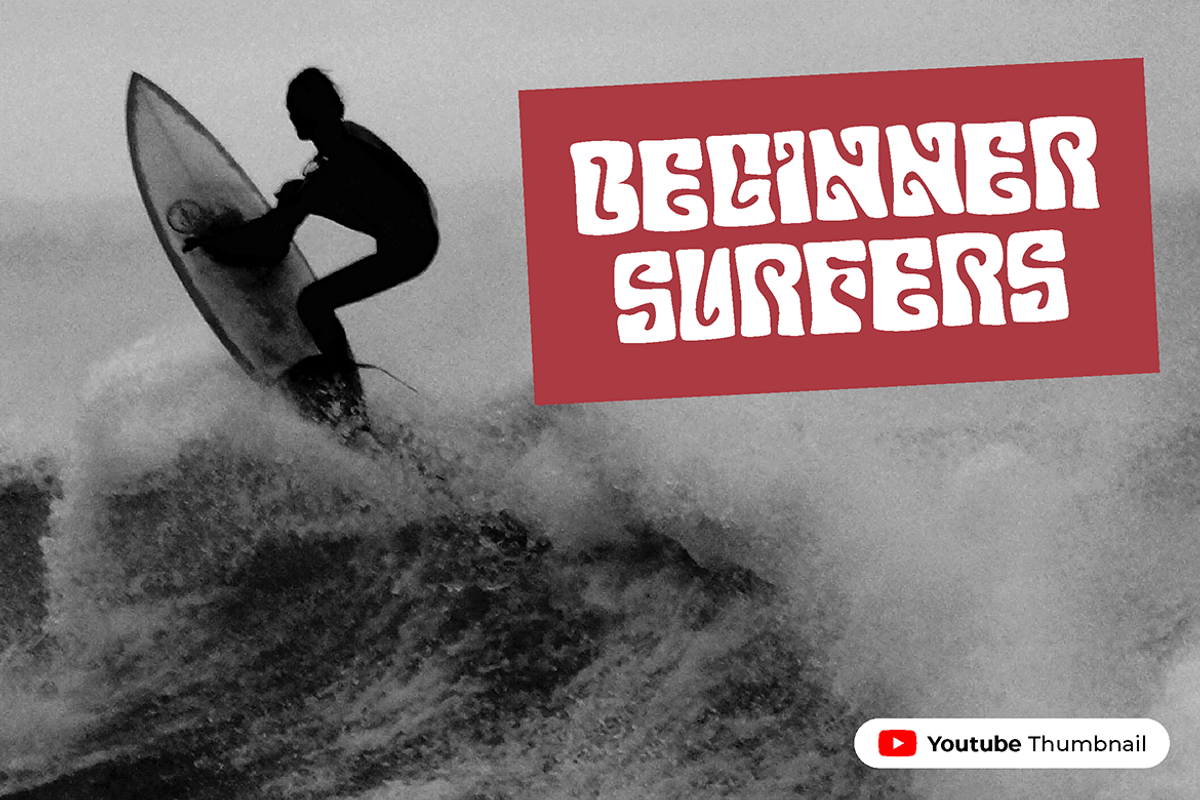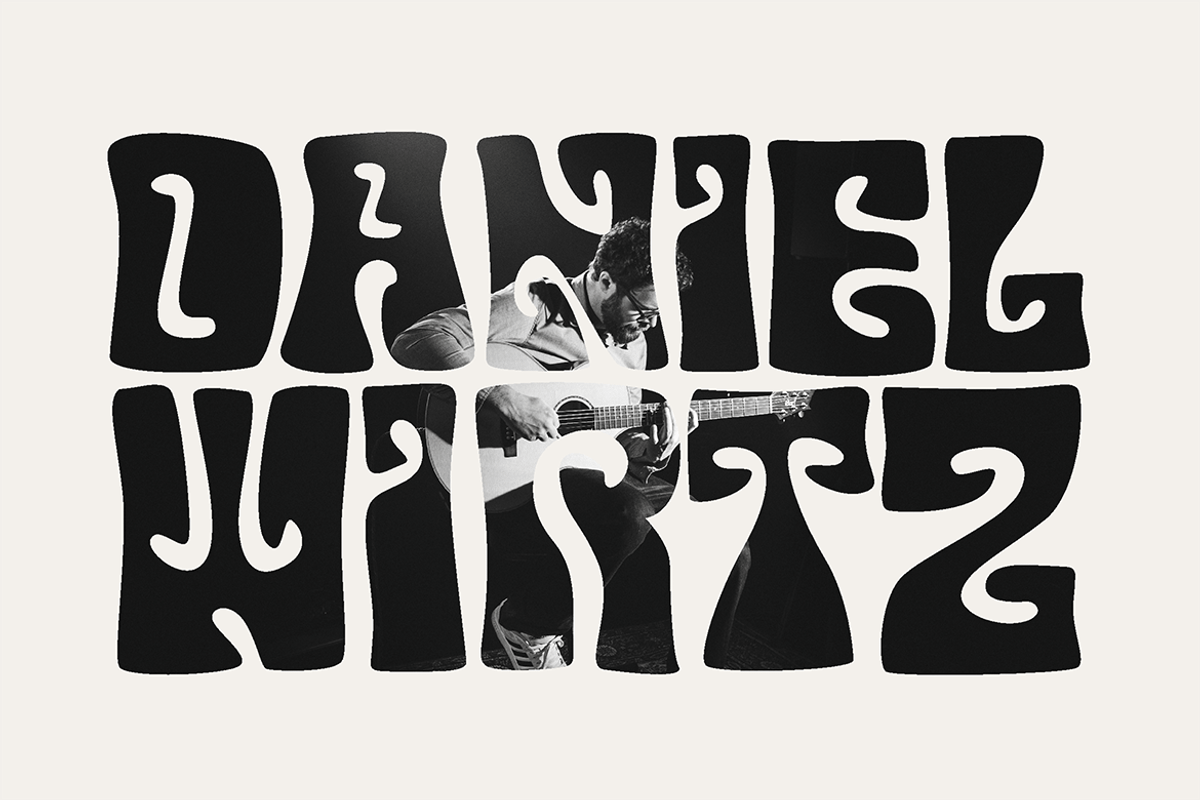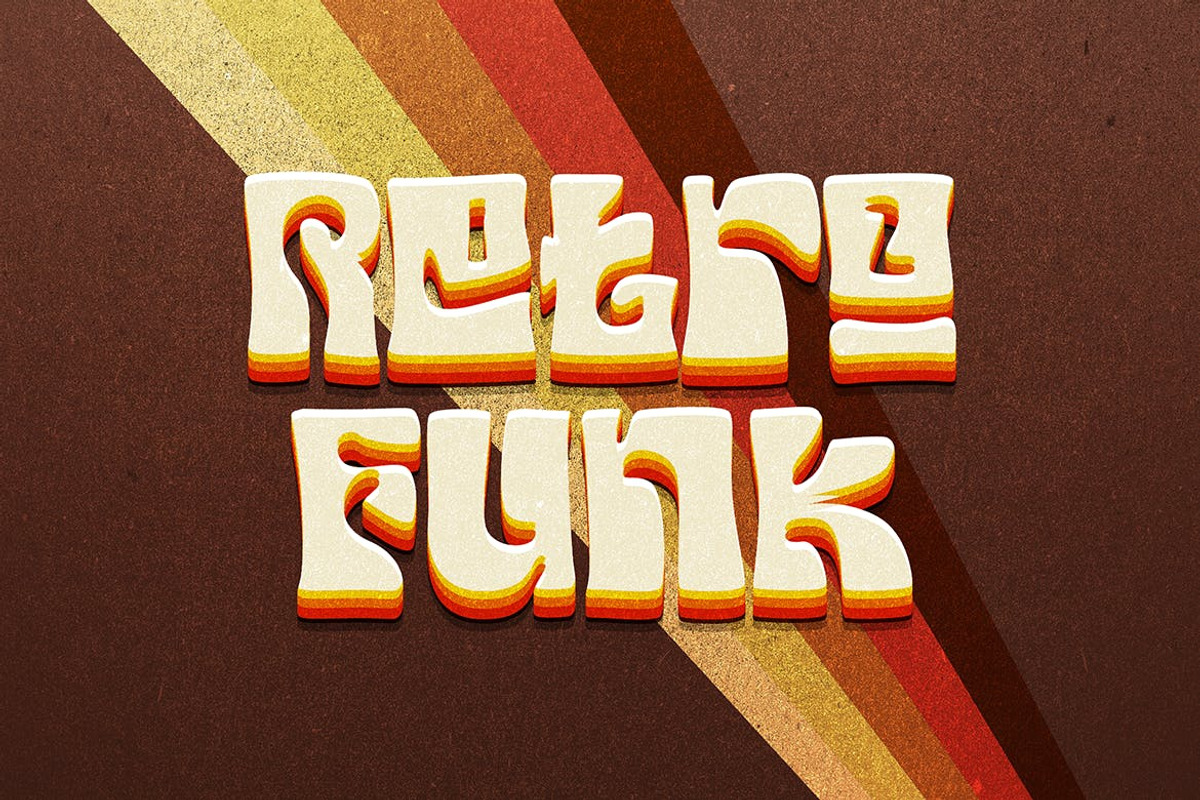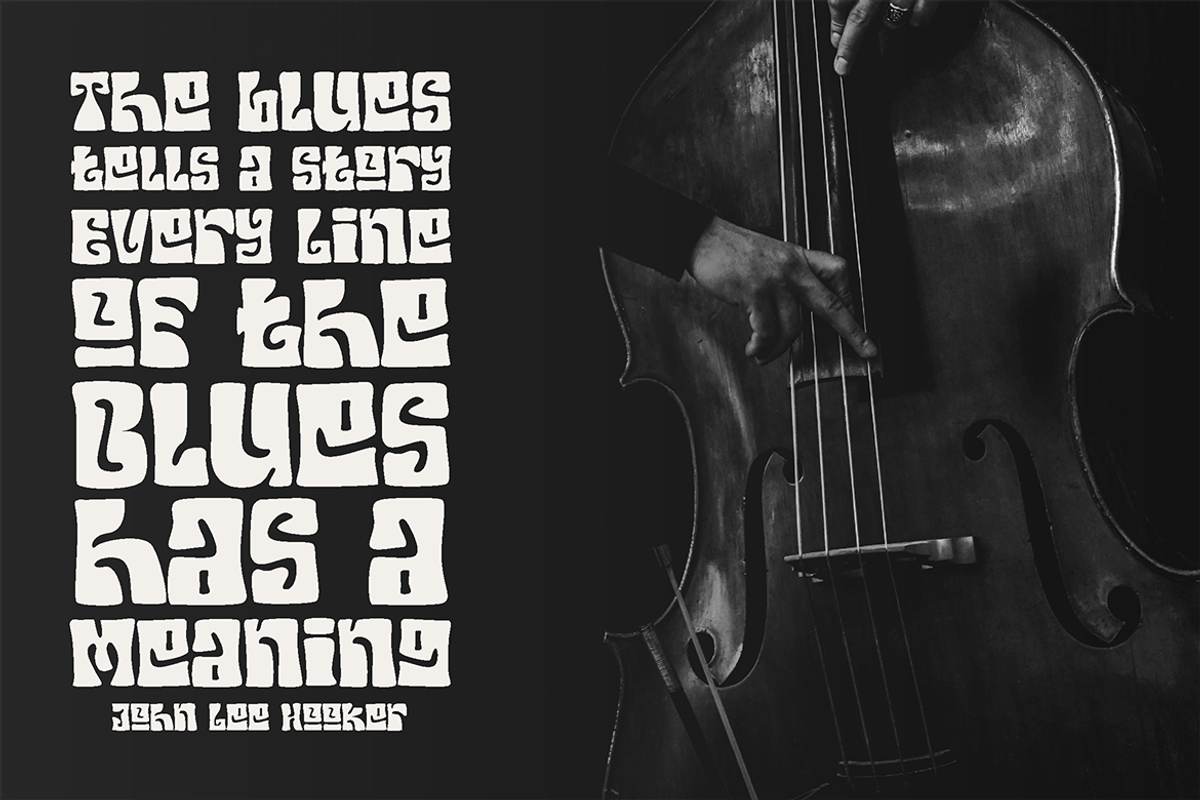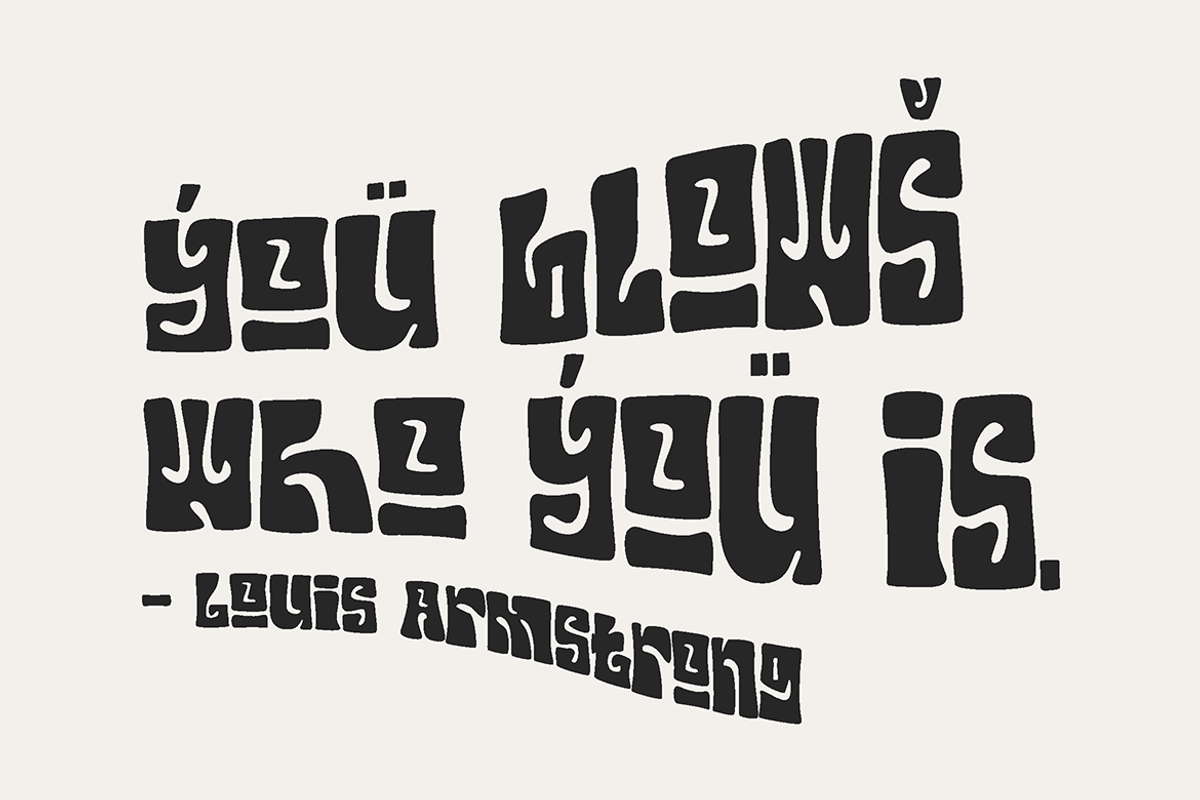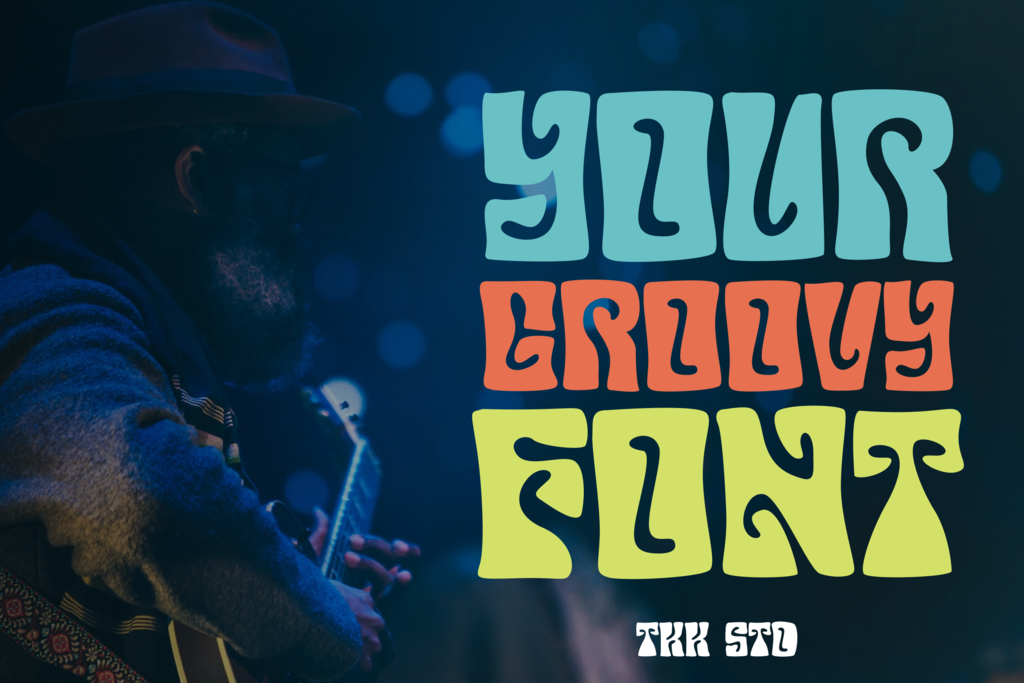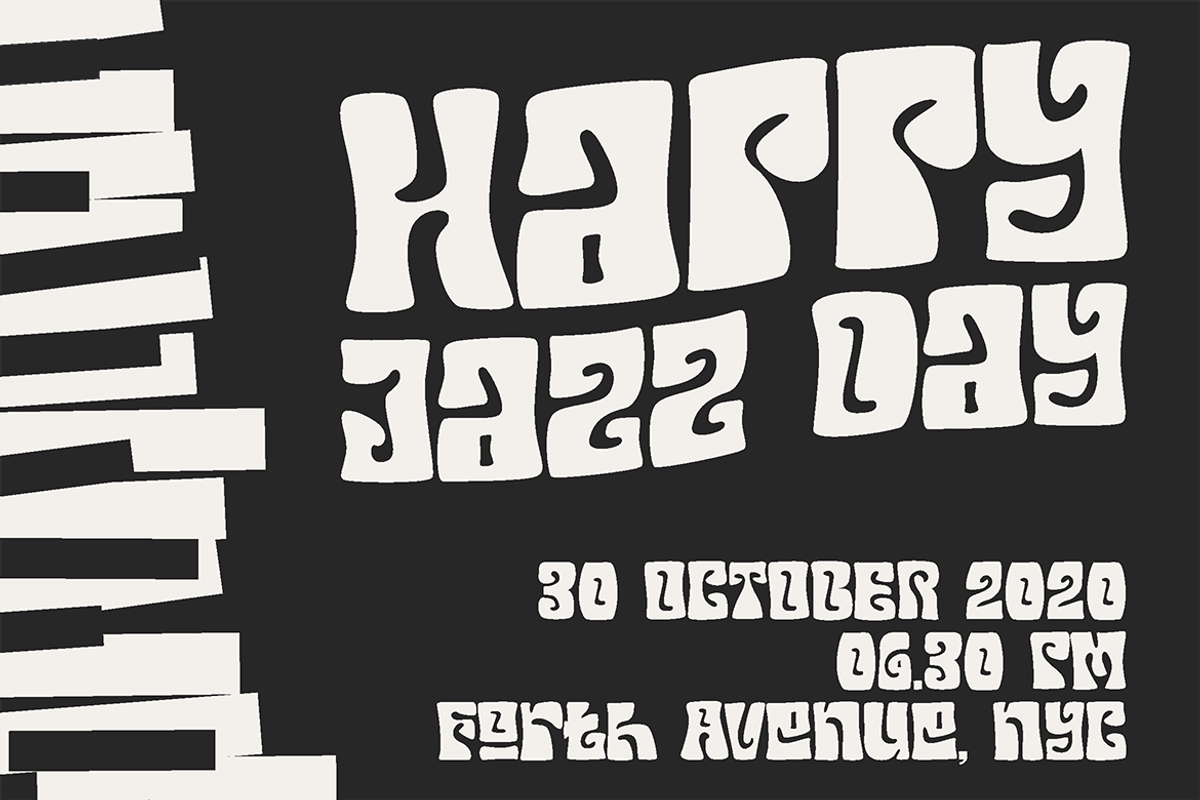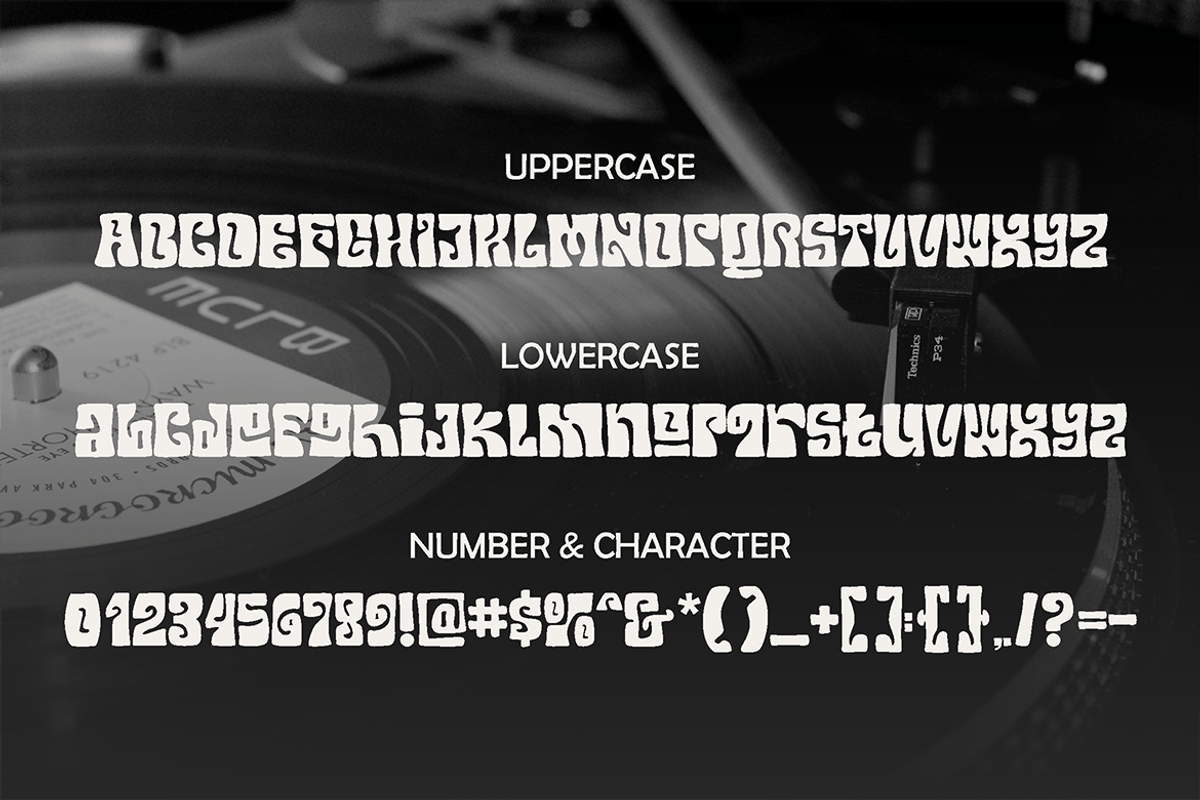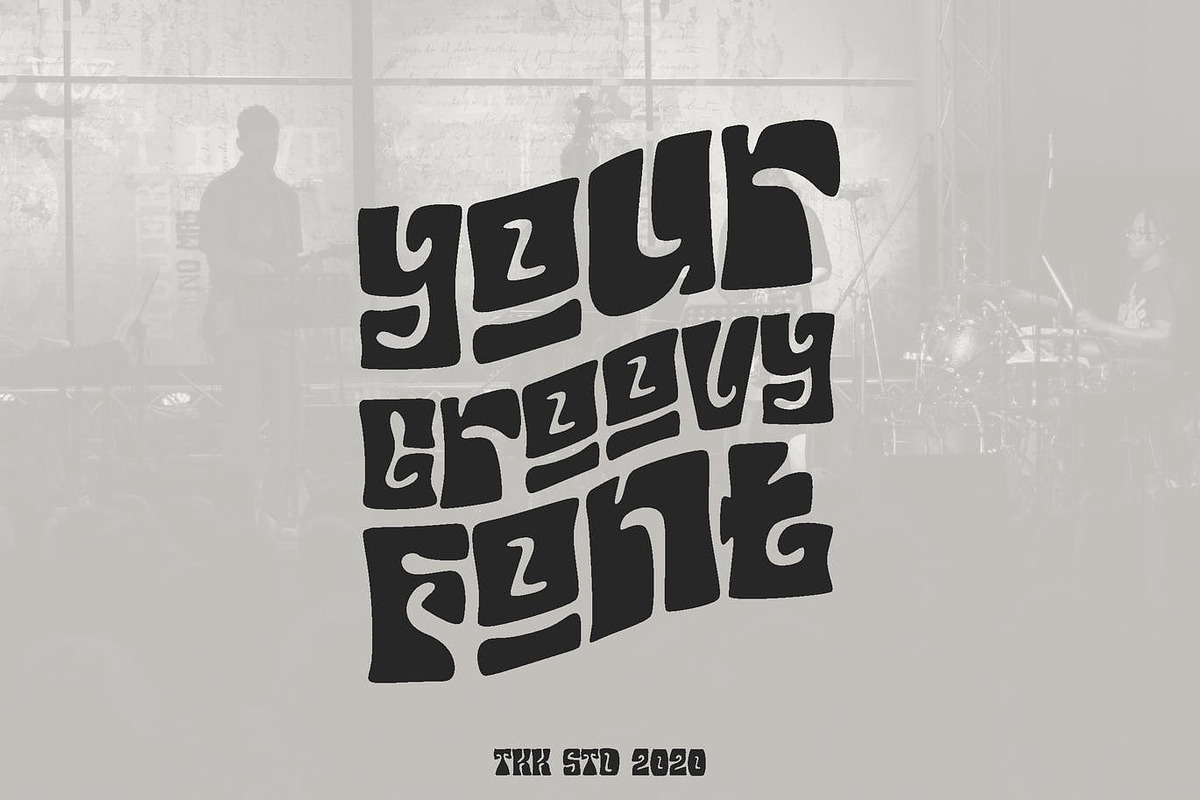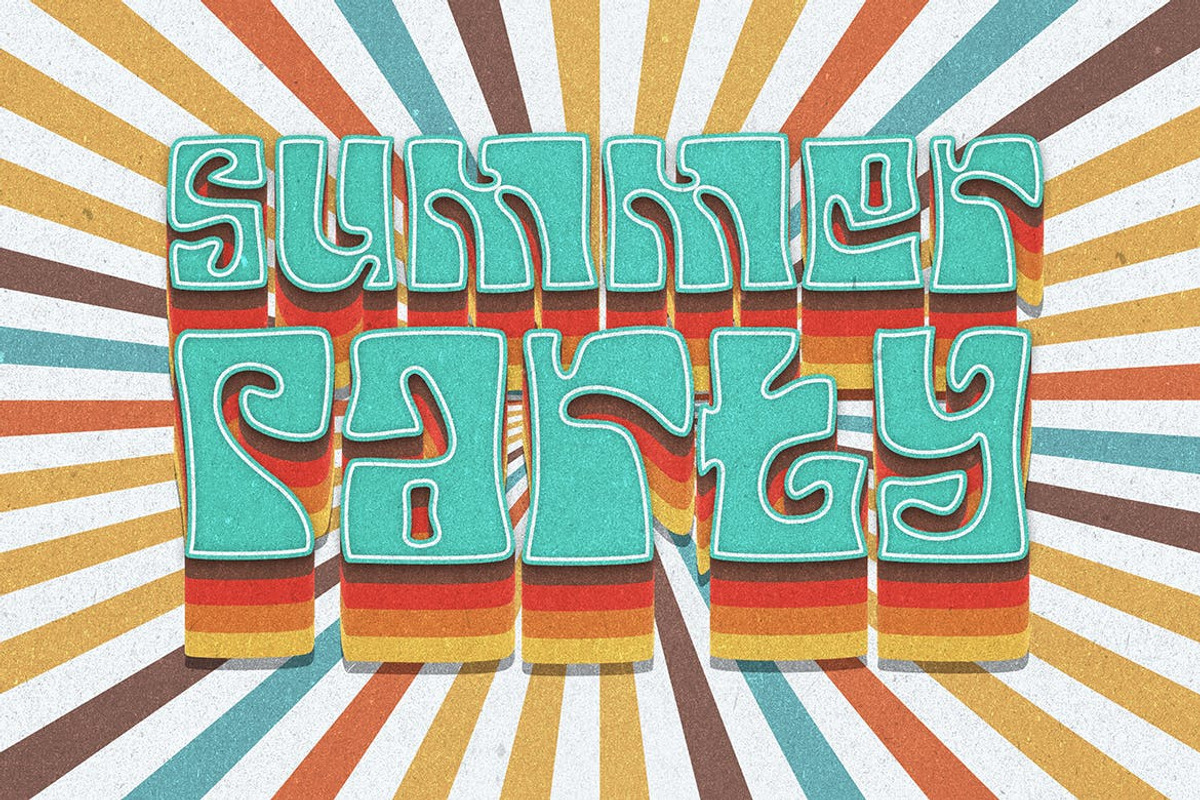
Your Groovy Font - Retro Fonts 70s
Your Groovy Font - Retro Fonts 70s Being a retro is always a stand out start. The chill vibe, the funky and afro hairstyle with marvy outfit….and don’t forget the music. The 70s era is a blast. Your Groovy Font will emphasize the vibe on everything that you wrote.
Suit perfectly for retro poster, retro and funk merchandise, movie title, beach restaurant menu, magazine, youtube covers, youtube thumbnails, social media page covers and so on…